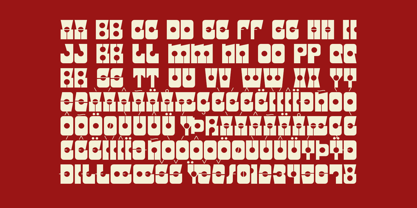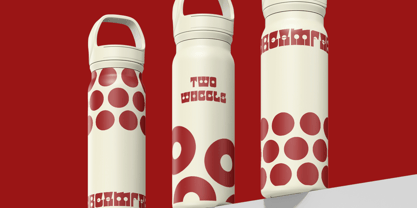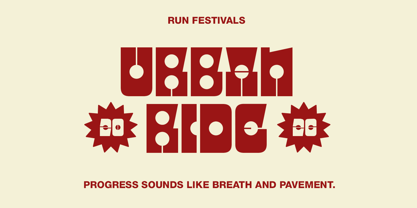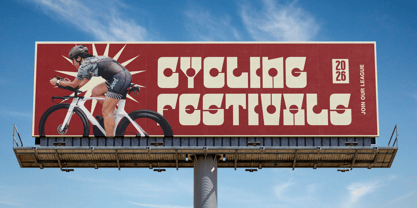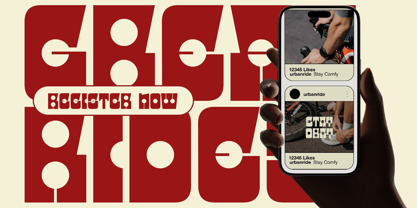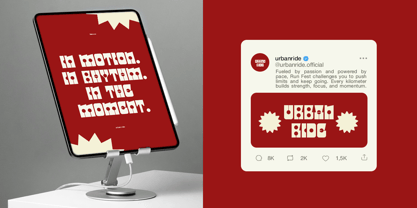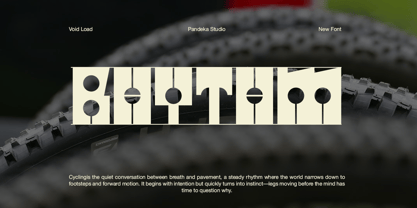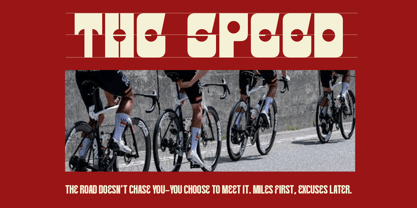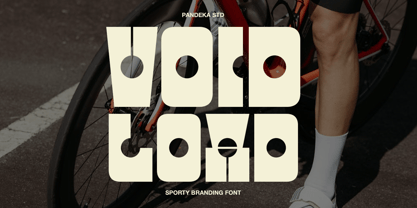
Void Load
by Pandeka Studio
The Void Load Font Family was designed by Sagara Nararya and published by Pandeka Studio. Void Load contains 1 styles. More about this family
Void Load is a bold and powerful display font built for sporty branding, racing themes, and high-energy visual design. Featuring chunky letterforms, geometric construction, and strong negative spaces, this font delivers a dynamic and competitive look that stands out in headlines, posters, and large-format layouts. Its solid structure makes it highly readable while maintaining a striking athletic personality.
This font comes in 1 style: Regular, including uppercase and lowercase letters, numerals, punctuation, and symbol support. Void Load is perfect for sports branding, cycling events, fitness campaigns, streetwear graphics, esports visuals, and promotional materials that demand speed, strength, and bold impact.